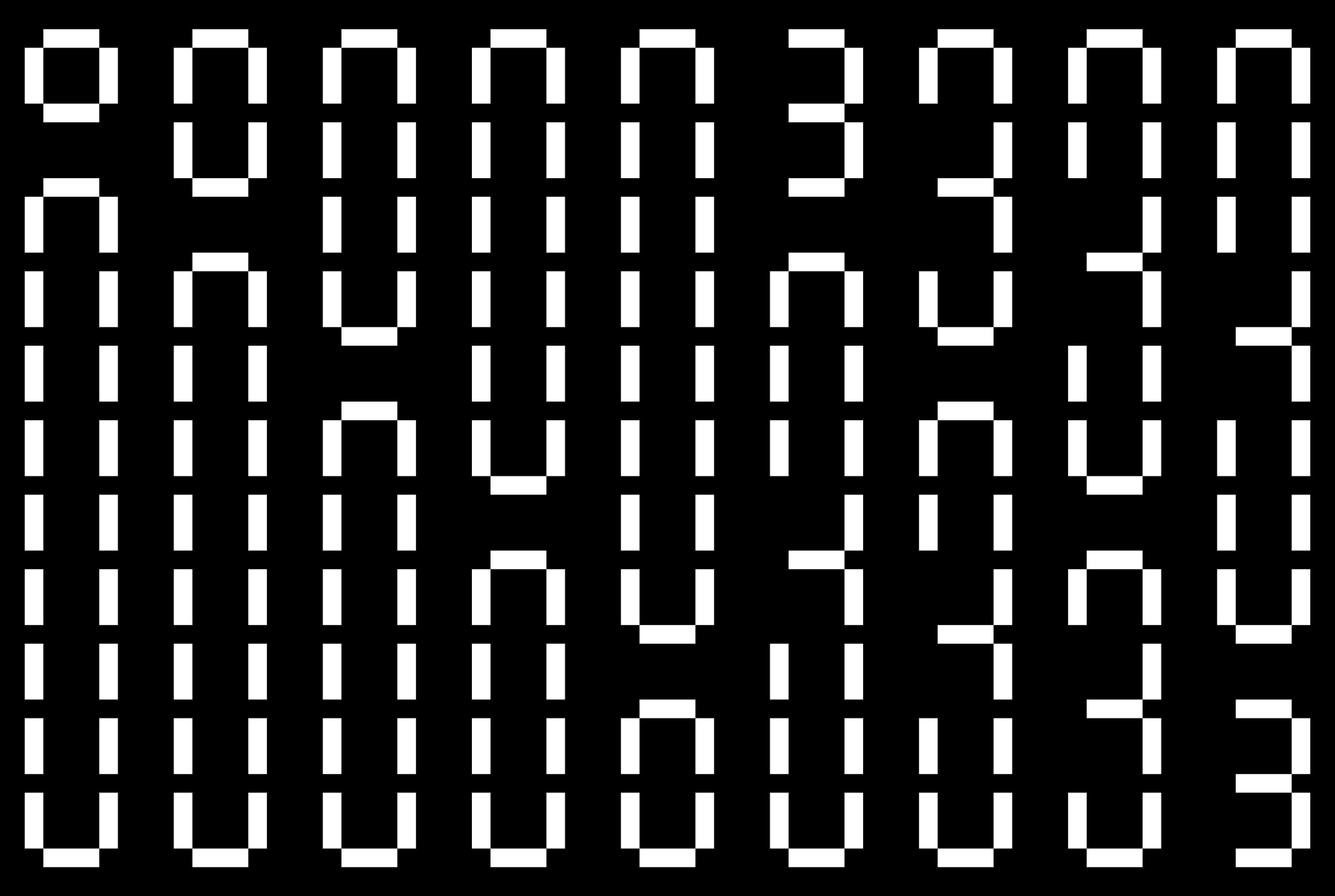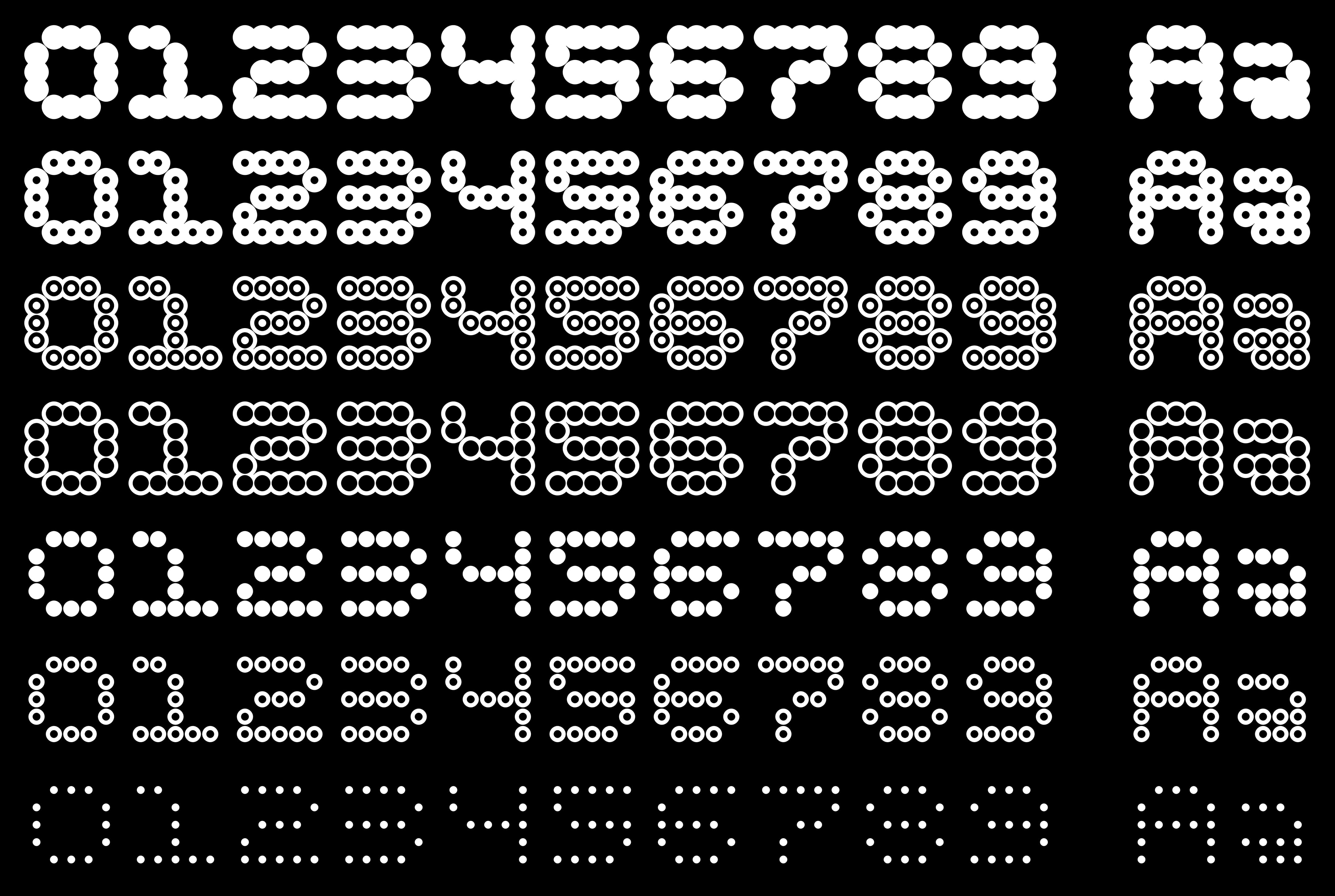
FROST Numbers (FTNO) is an experimental type project that puts numbers at the forefront. Each typeface in the collection is built primarily around its number set. The numbers set the tone, and the letters follow. In traditional type design, the alphabet typically leads, with numerals added afterwards to complement the anatomy of the letterforms. Here, that order is reversed. Numbers are the foundation, establishing the structure and rhythm of the typeface. Letters are shaped in response, drawing on the proportions and details set by the numerals.